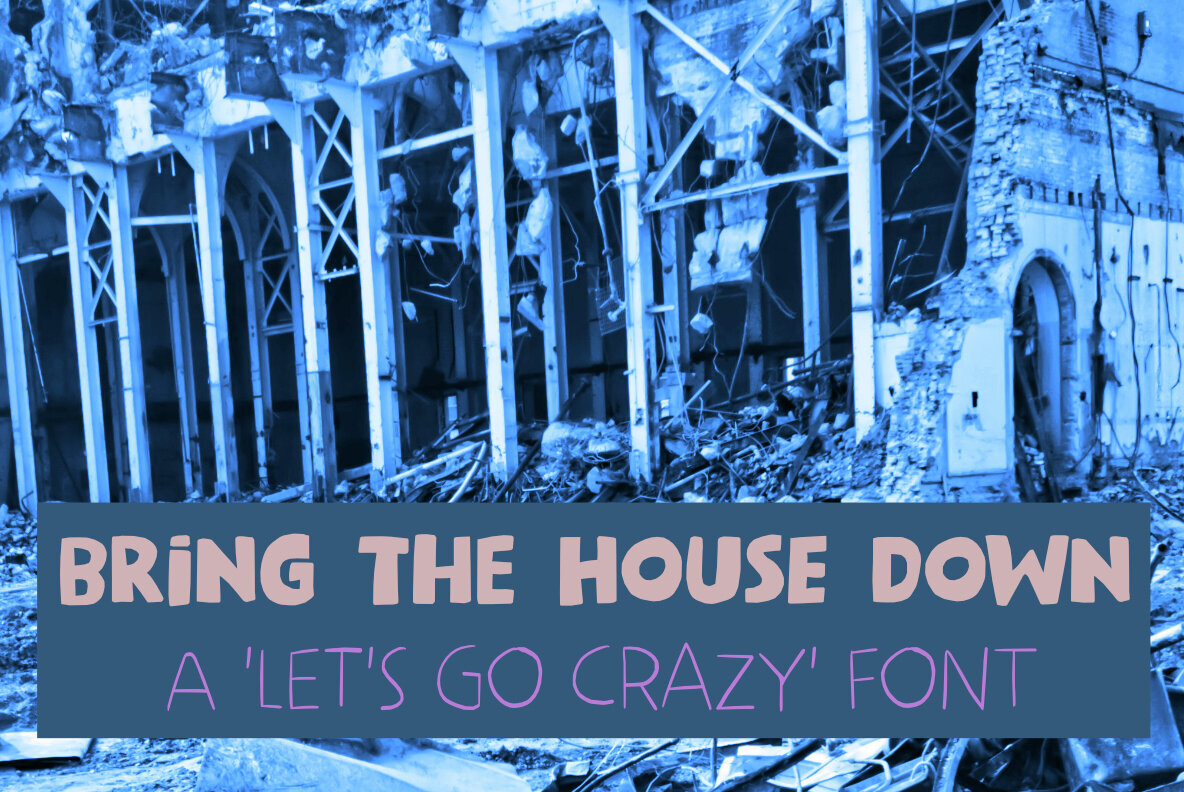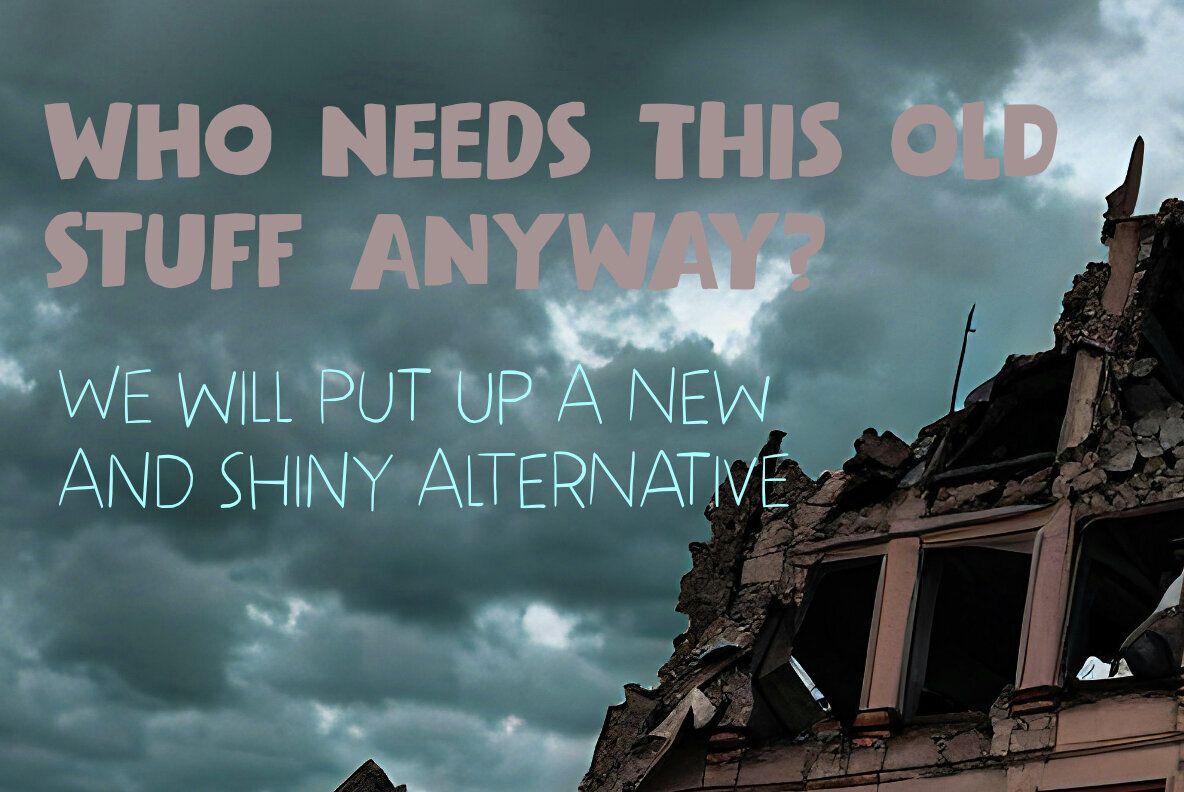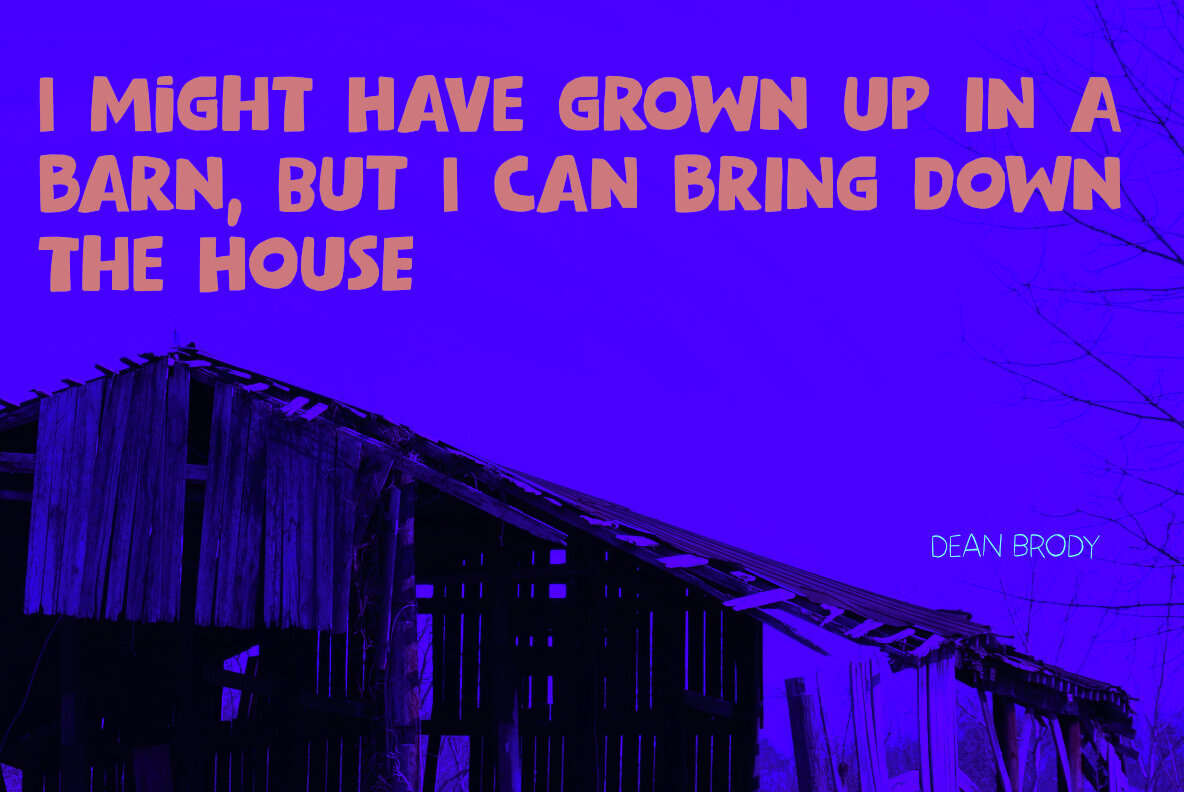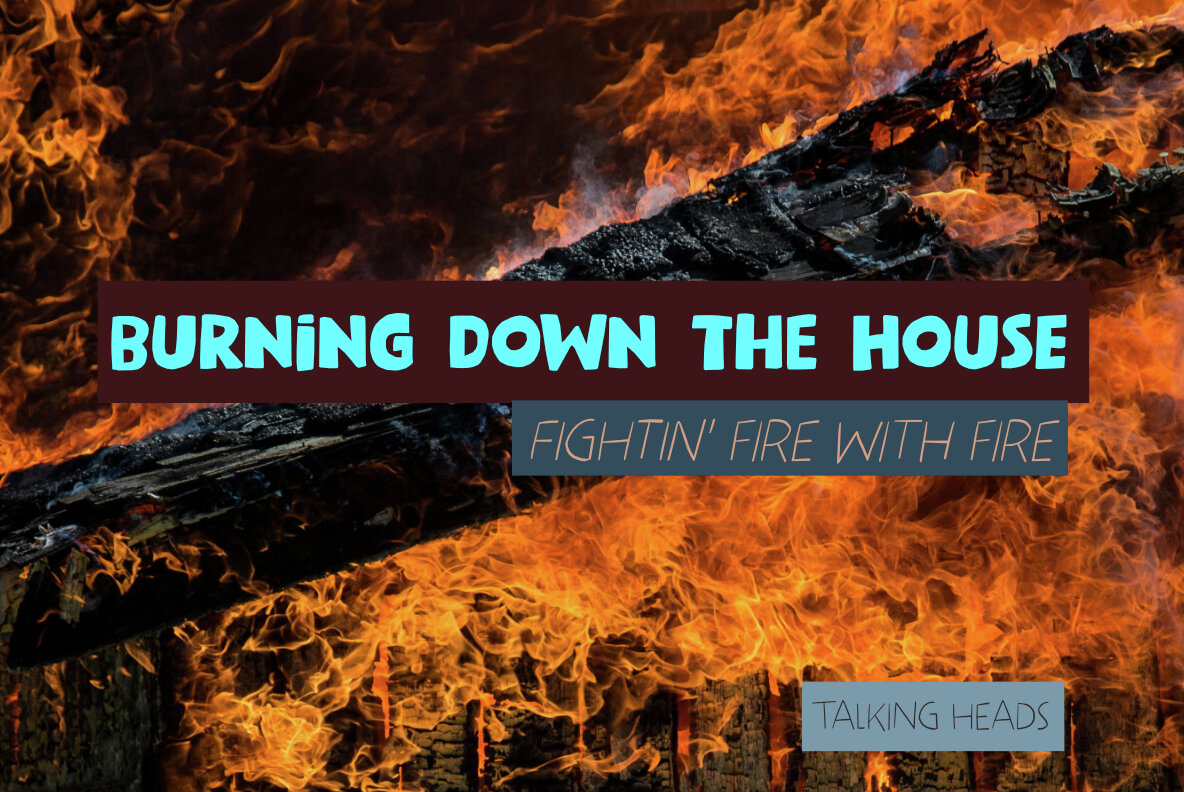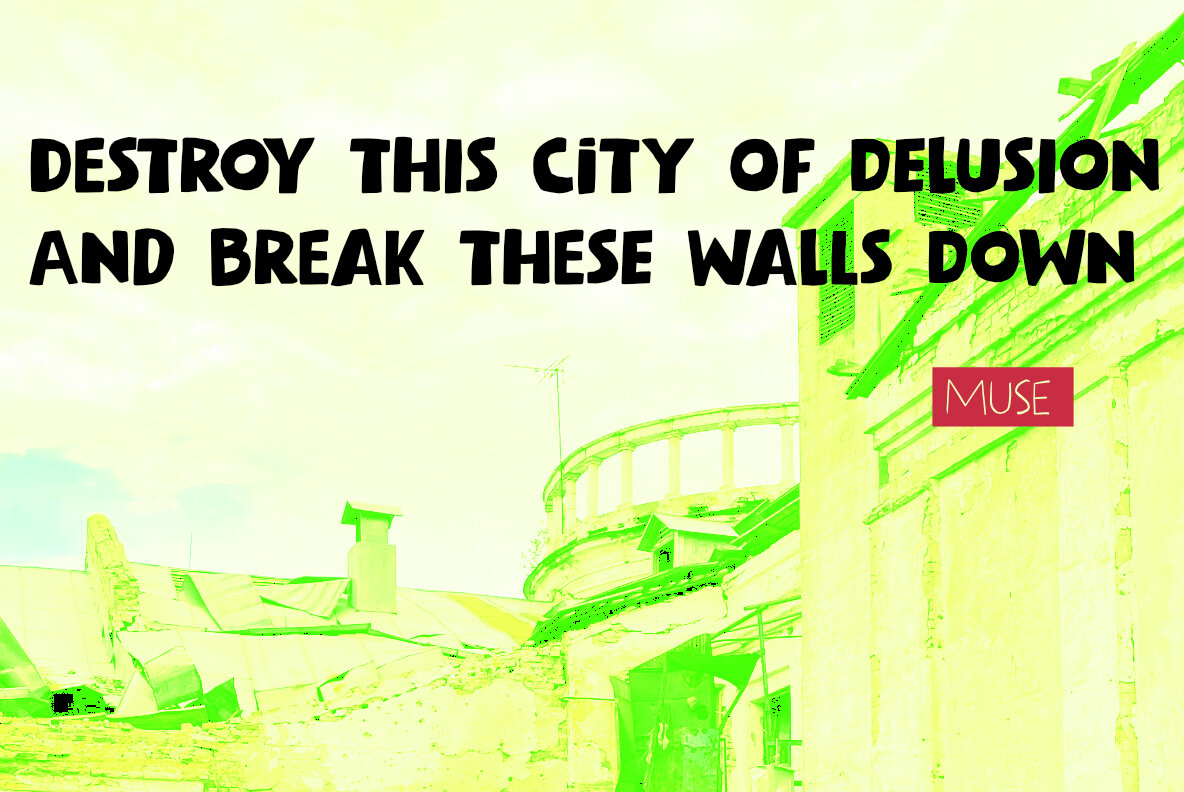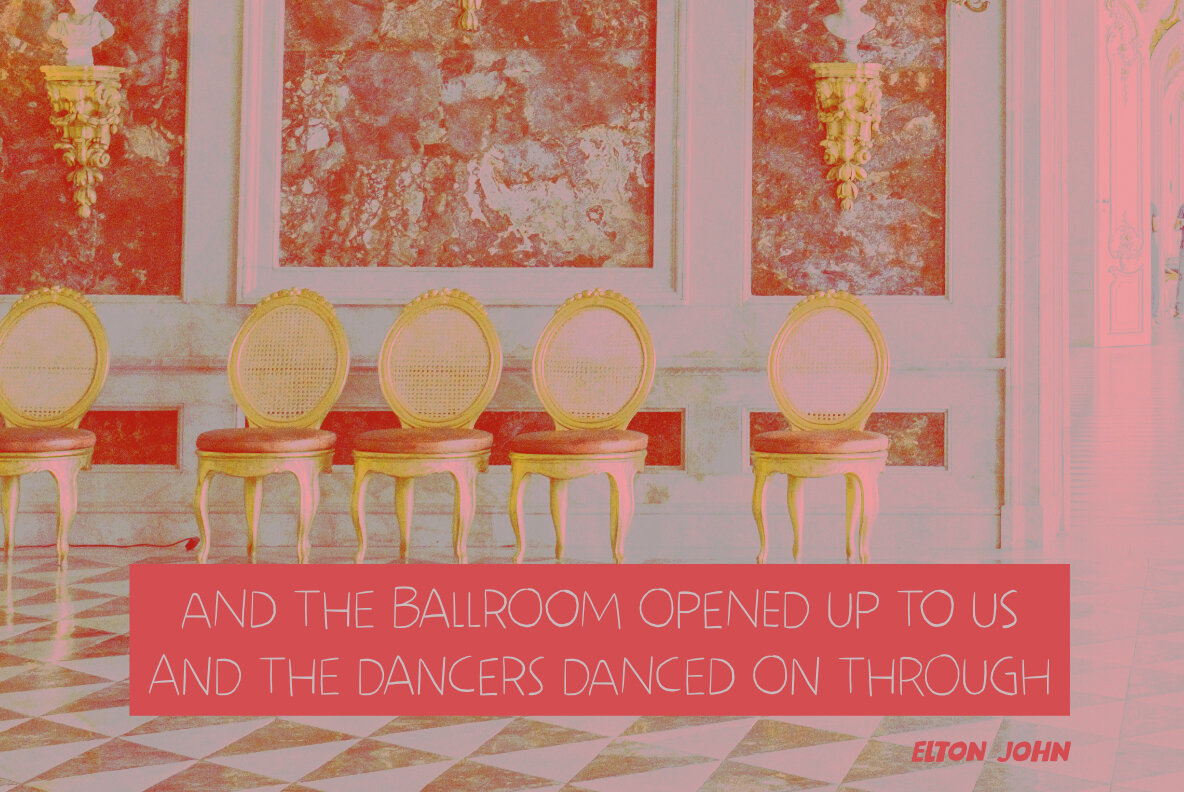
Bring The House Down Font
Bring The House Down Regular
Bring The House DownII Regular
Bring The House Down Italic
Bring The House DownII Italic
Bring The House Down offers two distinct handmade fonts, each with its own italic style. This versatile duo brings a lively, personal touch to any design, whether for packaging, advertising, or book covers. Each character set is crafted with attention to detail, creating authentic and expressive lettering. Both fonts include a complete set of alternates, letting you explore subtle variations and achieve the ideal look for your project. The organic imperfections make these typefaces stand out in creative branding, event invitations, and editorial layouts.Bring The House Down: Handmade Font Duo